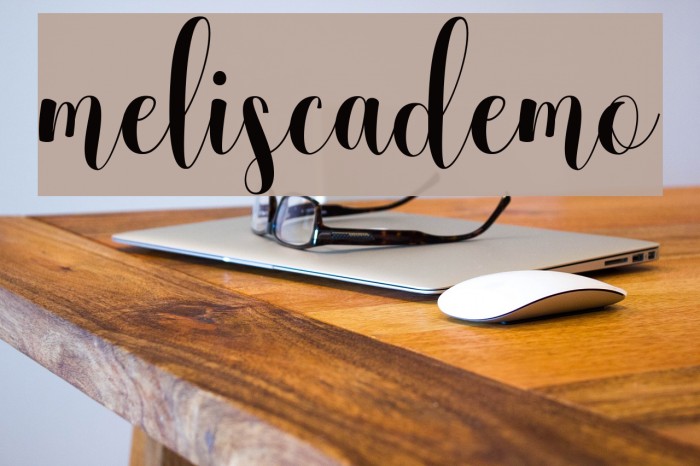
meliscademo Font
This font features an elegant and flowing script style, characterized by its intricate and decorative letterforms. The uppercase letters are tall and slender, with graceful loops and swashes that add a sense of movement and sophistication. The lowercase letters maintain a consistent style, with some characters featuring unique flourishes that enhance the overall aesthetic. The numbers and special characters are designed to match the ornate style of the alphabet, making this font suitable for creative and artistic projects. The high contrast in stroke thickness adds to its dramatic appearance, making it ideal for attention-grabbing designs.
An elegant and flowing script font with decorative swashes and high contrast.
- Proposed Projects: Ideal for wedding invitations, branding, logos, and decorative headings.
- Category: Script
- Overall Style: Decorative
- Use Case: Logos, Headlines, Invitations